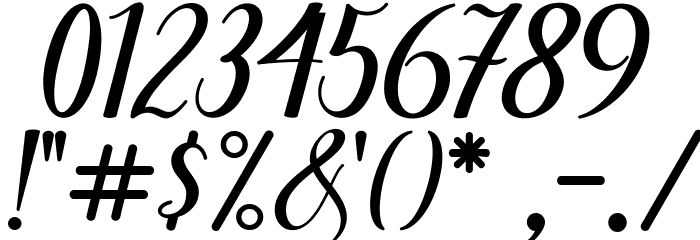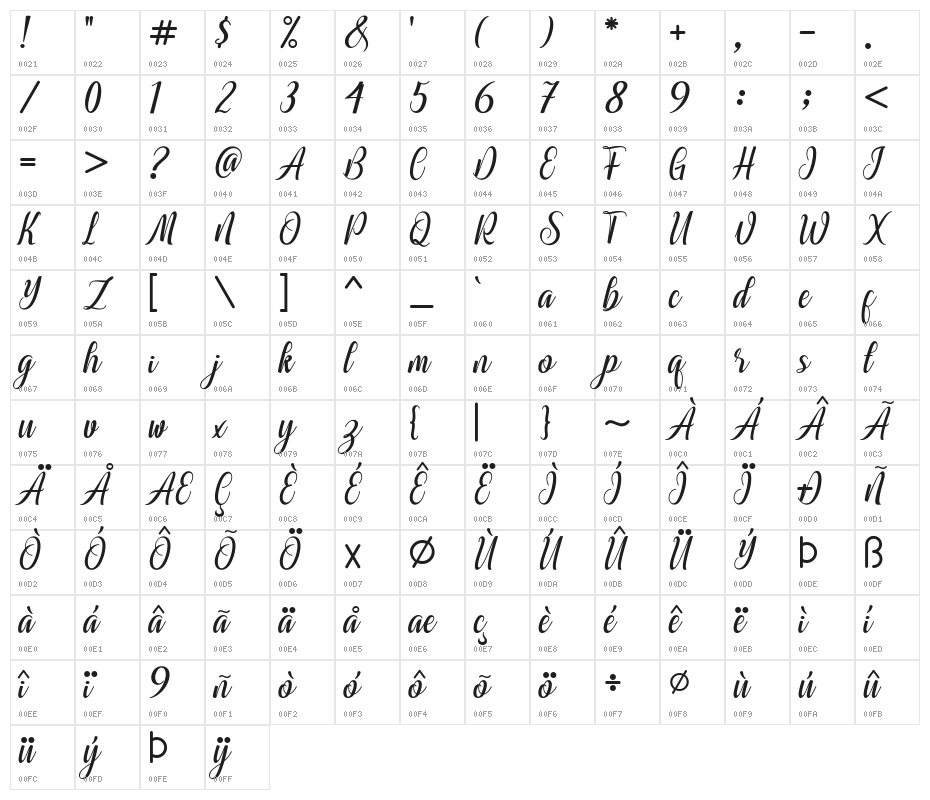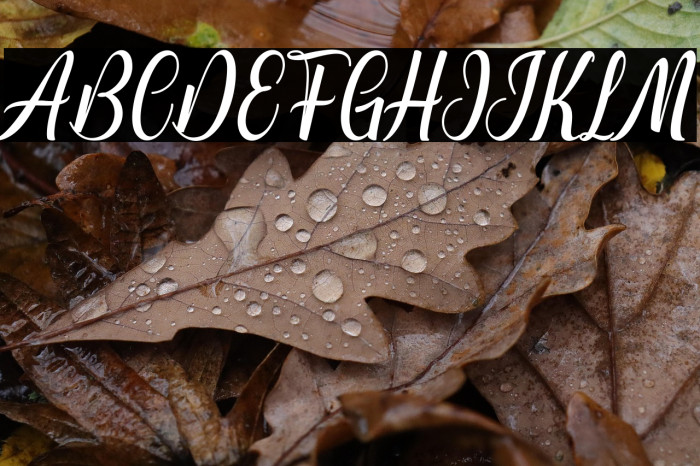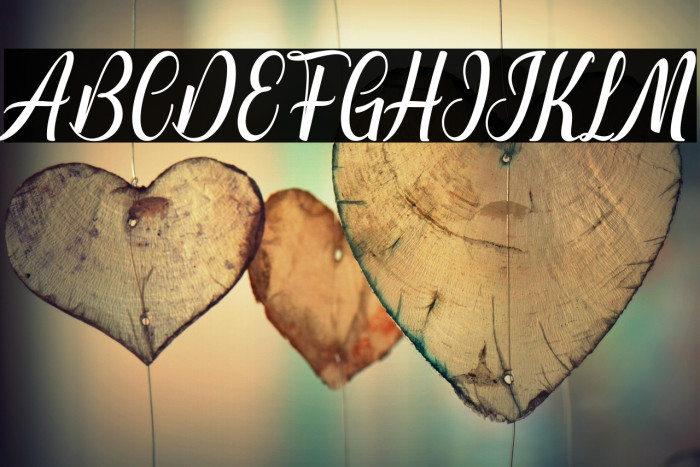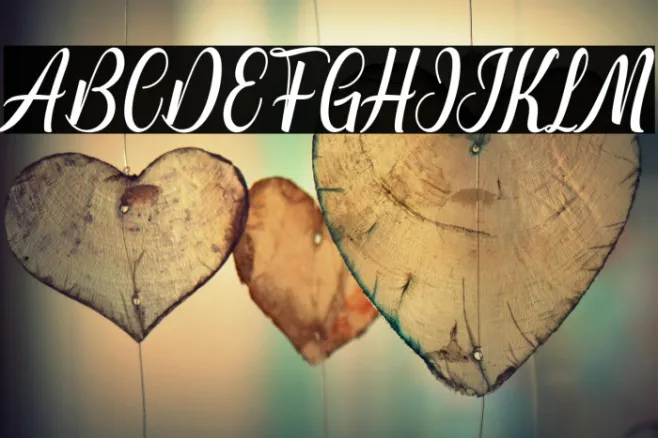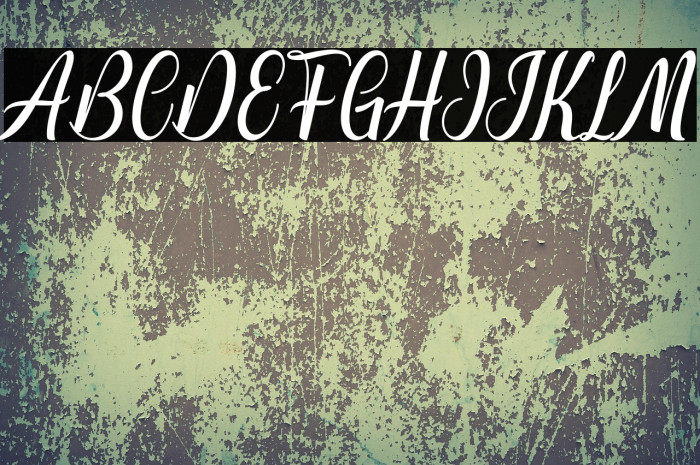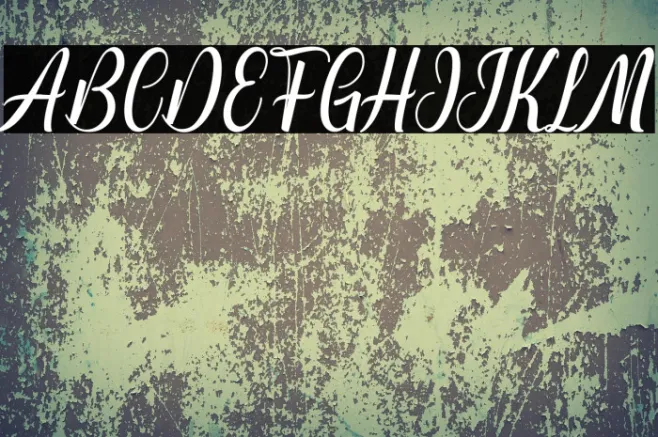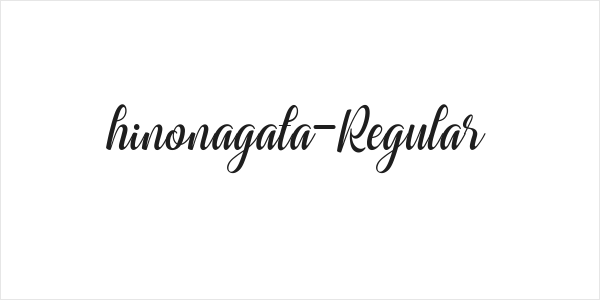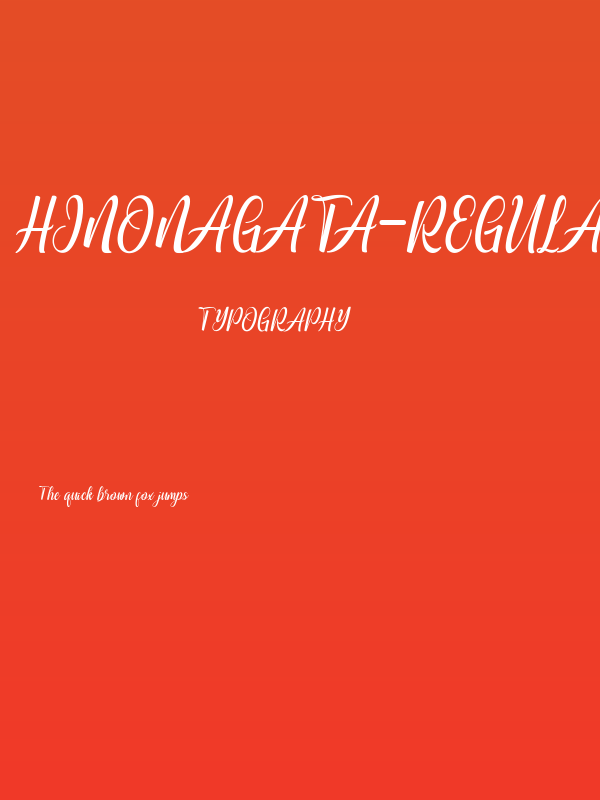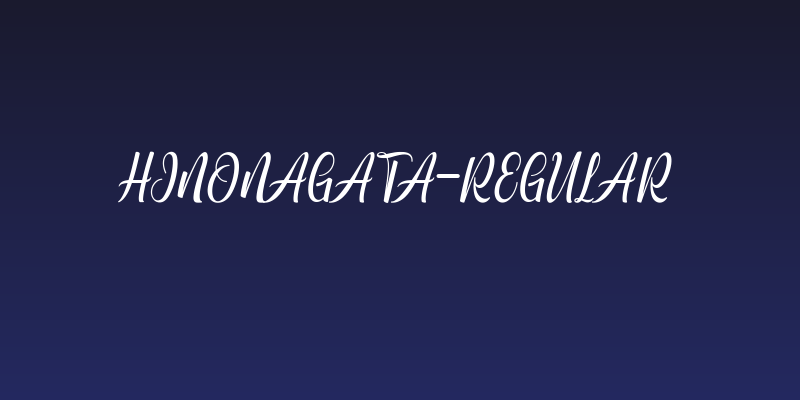
hinonagata-Regular Font
hinonagata-Regular Description
This font features an elegant and flowing script style, characterized by its smooth, cursive strokes and graceful curves. The uppercase letters are tall and slightly slanted, with decorative flourishes that add a touch of sophistication. The lowercase letters maintain a consistent flow, enhancing readability while preserving the font's artistic flair. Numbers and special characters are designed to complement the overall aesthetic, making it versatile for various design applications. The font's style is reminiscent of classic calligraphy, yet it retains a modern appeal suitable for contemporary projects.
| Proposed Projects | Ideal for wedding invitations, elegant branding, greeting cards, and upscale packaging. |